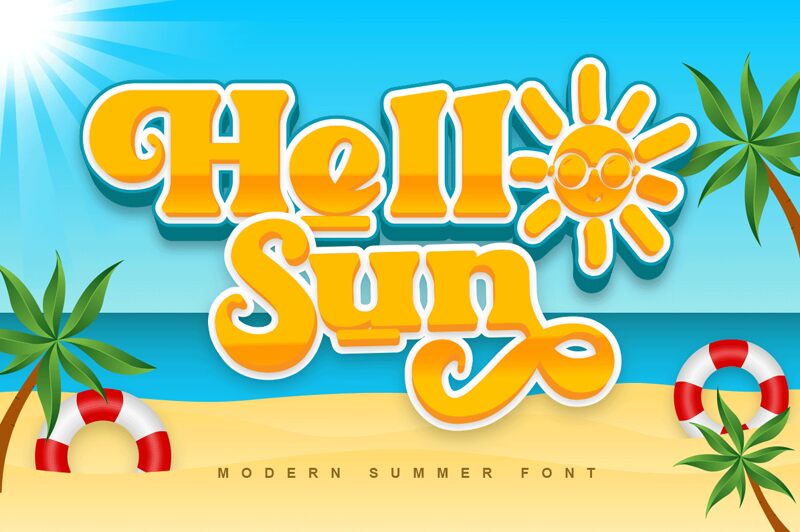
Hello Sun, designed by Kong Font, radiates a vibrant personality with its bold serif strokes and playful character. This font captures attention effortlessly, showcasing a harmonious blend of modern charm and classic elegance. Its generous proportions lend an inviting warmth, making it ideal for projects that seek to convey both positivity and sophistication.
Visually striking, Hello Sun is perfect for headlines that need to stand out while maintaining a sense of friendliness. Ideal for branding applications, promotional materials, or any design context aiming for a light-hearted yet refined aesthetic, this font brings a unique flair that enhances creativity without overwhelming the message. Make your designs shine brightly with the infectious energy of Hello Sun.